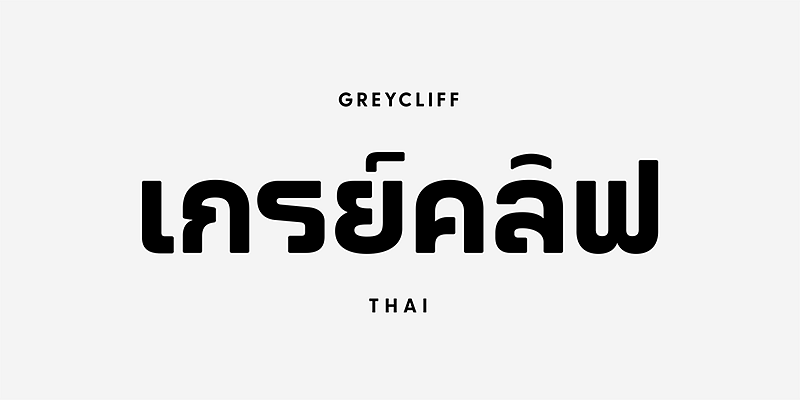
Greycliff Thai CF Font Free Download is a bold, geometric sans-serif typeface that extends the trusted Greycliff CF family with full support for the Thai script. Designed for clarity, versatility, and visual harmony, this font is perfect for international branding, editorial projects, digital interfaces, packaging, and signage where both Latin and Thai need to work together seamlessly.
Greycliff Thai CF Font Free Download features clean lines, strong curves, and precise proportions that ensure excellent readability in both scripts. Its design preserves the personality of the original Greycliff CF while respecting the unique forms and rhythm of Thai characters—making it ideal for bilingual and global projects.
With multiple weights and a professional, approachable tone, this font is a favorite for designers who value multilingual consistency and modern style.